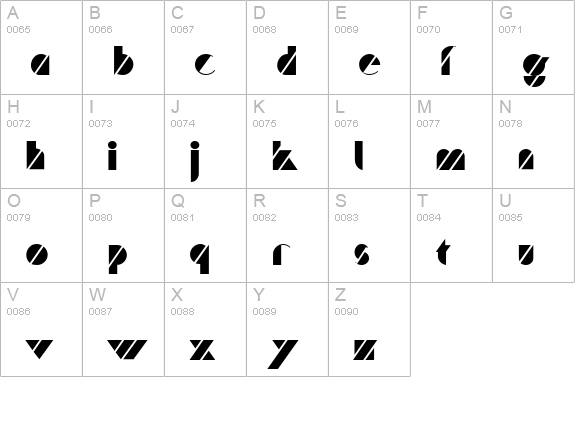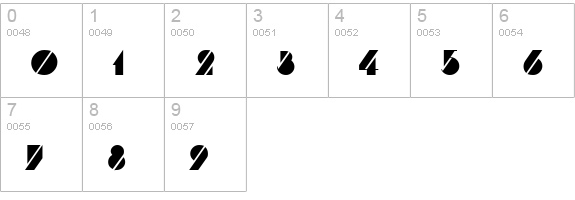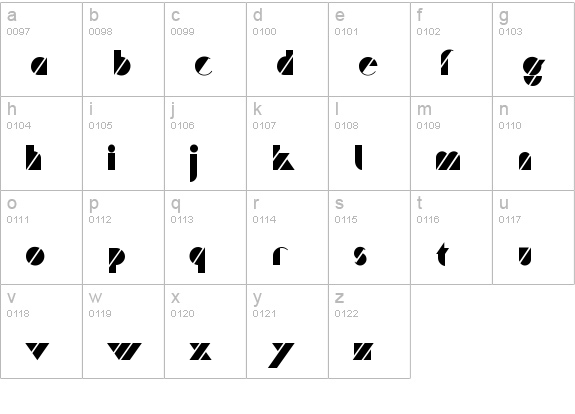
Truffle Regular is the standard, neutral variant in the Truffle typeface family \xE2\x80\x94 well suited to general body text, paragraphs, and standard typographic work.
Truffle Regular font is a stunning display typeface that exudes elegance and sophistication. Its balanced letterforms and clean lines make it a versatile choice for a wide range of design projects. With its timeless appeal, Truffle Regular adds a touch of class to any text it graces. This font features a perfect blend of modern and classic design elements, making it suitable for both contemporary and traditional designs. Its medium weight and well-defined characters ensure readability in any size, making it ideal for both headlines and body text. Truffle Regular font is available for free download at FontsMarket.com. This means that you can enjoy all the beauty and functionality of this font without any cost. It is a generous offer that allows designers, students, and hobbyists alike to access a high-quality typeface without breaking the bank. Whether you're working on a branding project, a magazine layout, or a website design, Truffle Regular font will elevate your work to the next level. Its timeless beauty and versatility make it a valuable asset in any designer's toolkit. So don't miss this opportunity to enhance your designs with Truffle Regular font. Visit FontsMarket.com today and download this font for free. Experience the seamless blend of style and functionality that Truffle Regular has to offer.